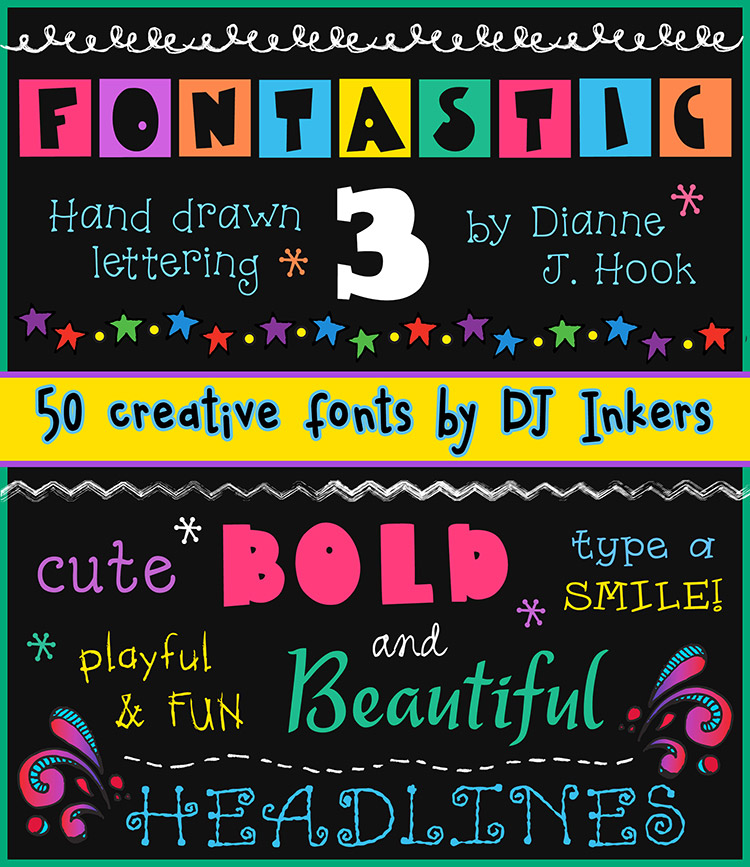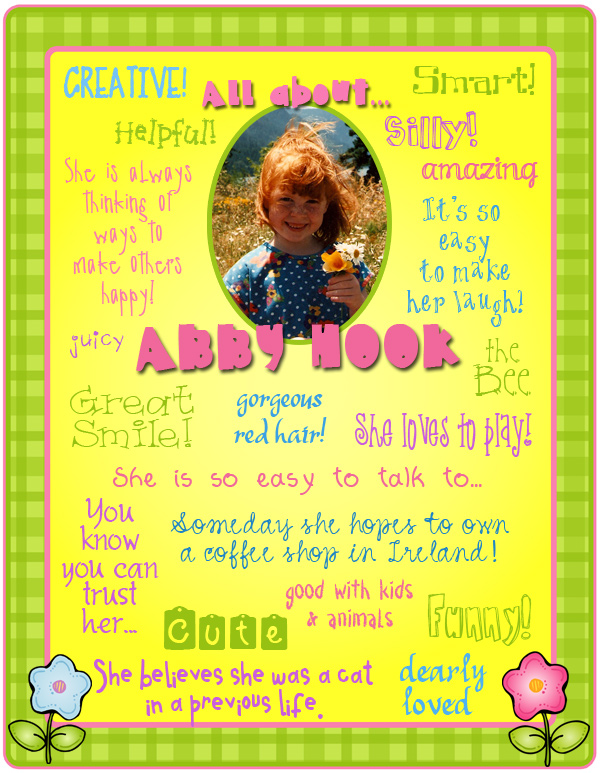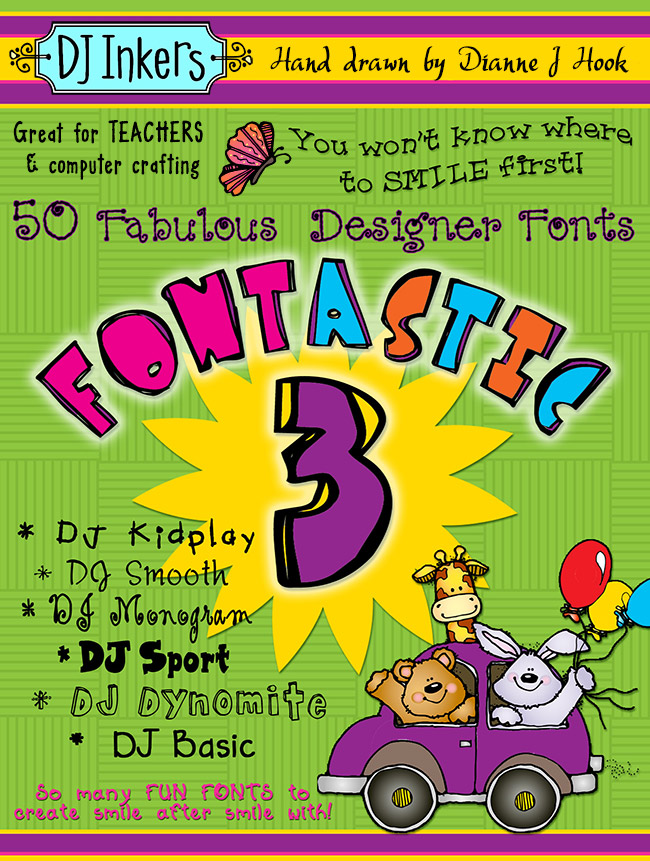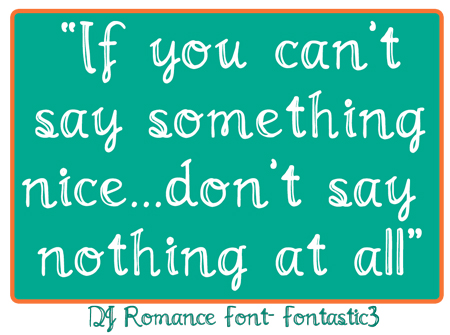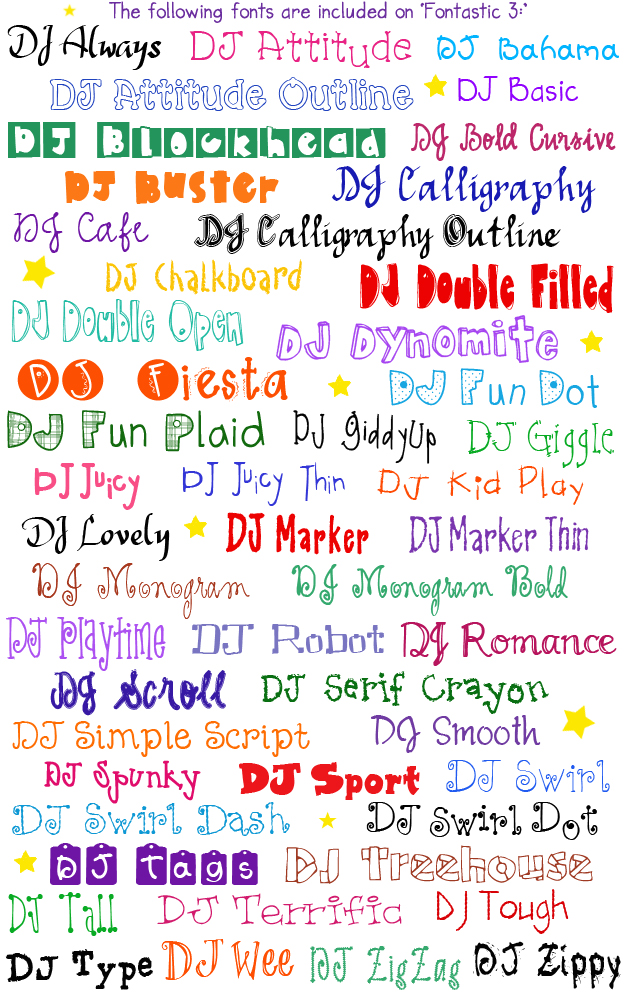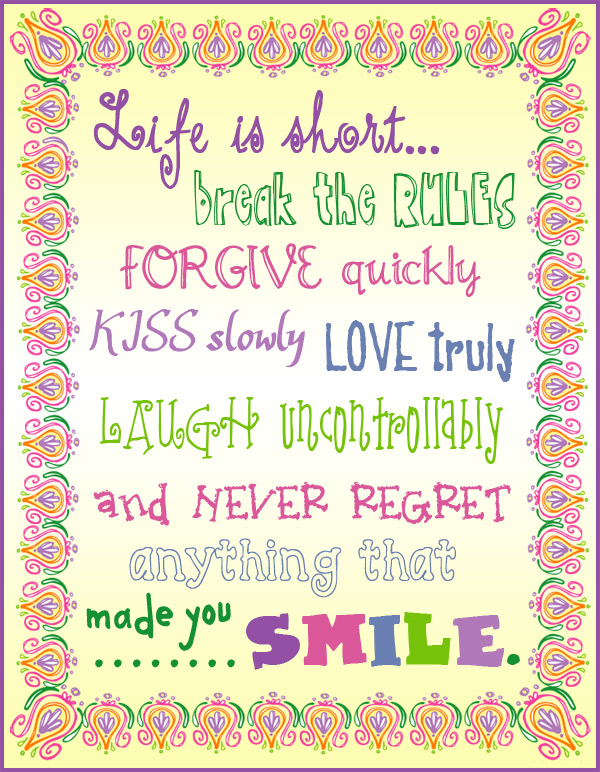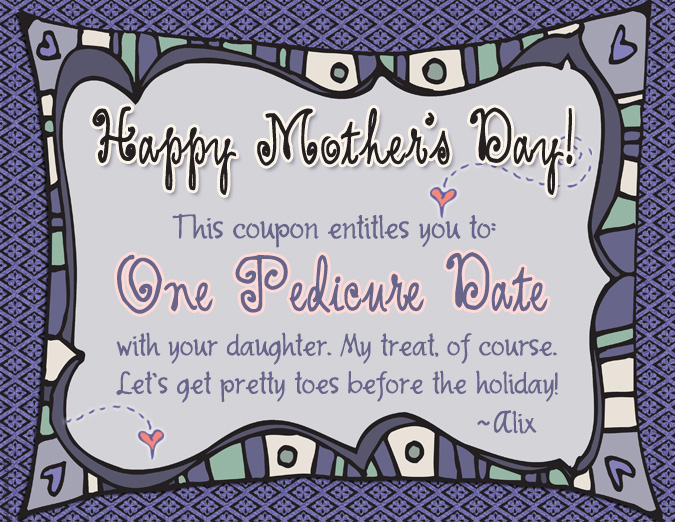
Fontastic 3 Font Collection - 50 Fonts by DJ Inkers
Font-astic 3 is packed with 50 fun & fabulous, hand-drawn fonts by DJ Inkers. This awesome bundle has everything from whimsical & cute fonts to bold headline lettering... with lots of variety & customer suggestions. You'll always have what you need to personalize your projects and type up a smile in style. In fact, #3 is our favorite Font-astic collection. Download today and start creating right away!